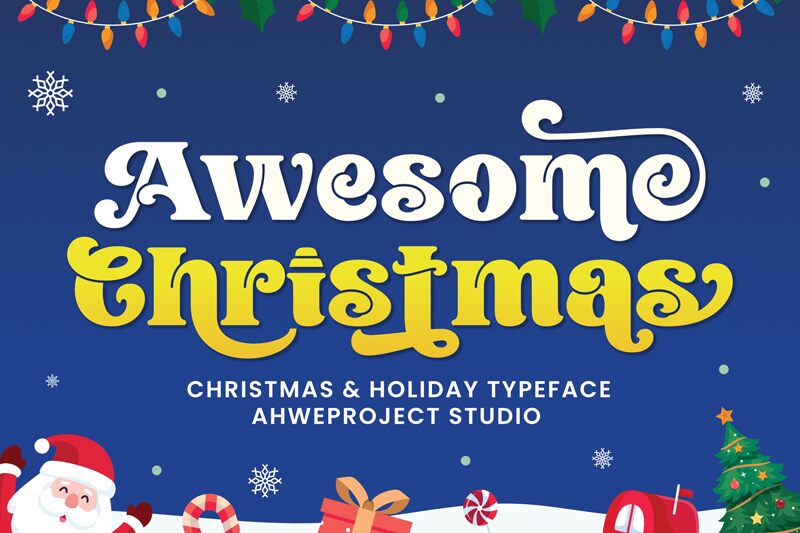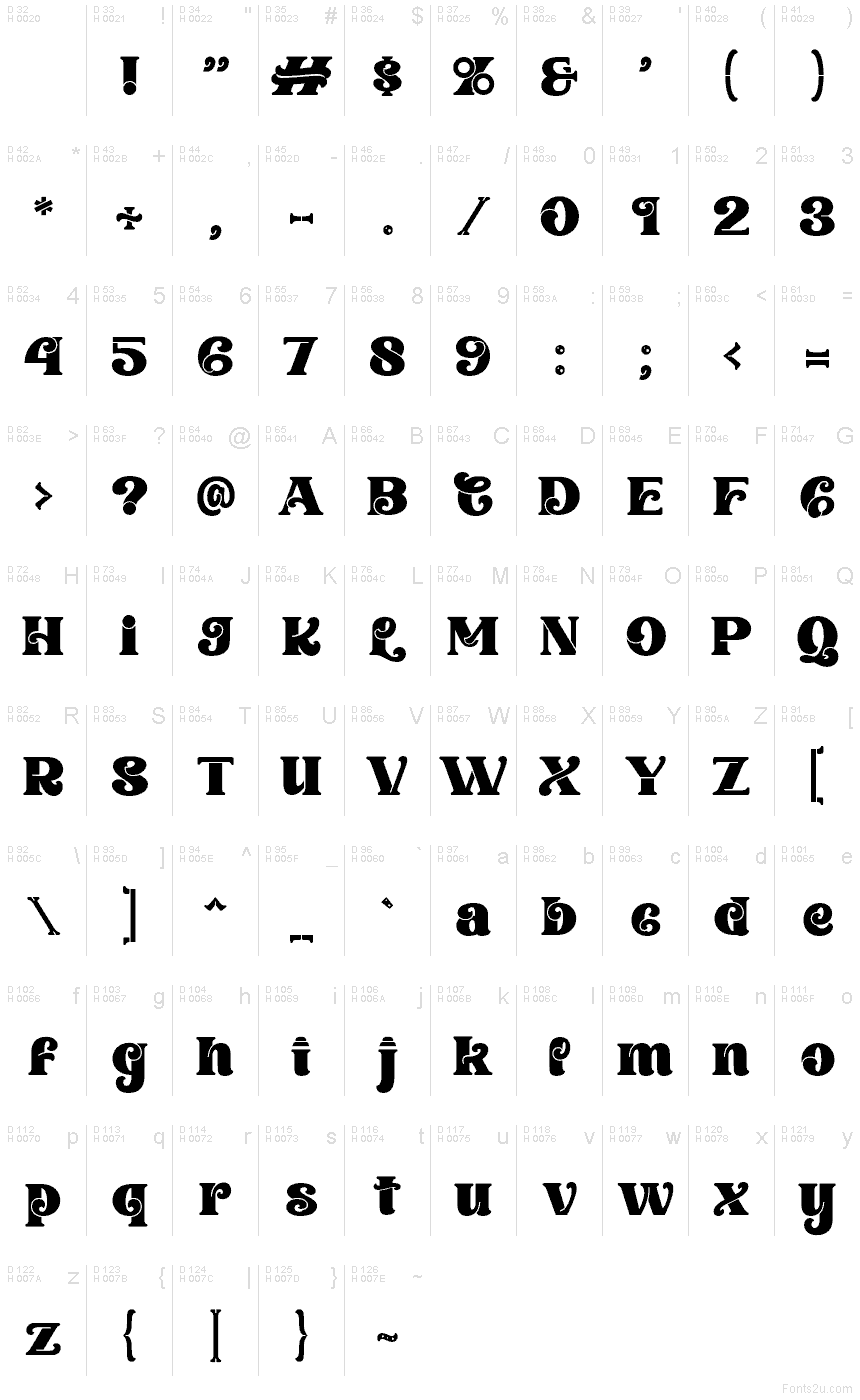
Awesome Christmas font by Ahweproject is a free decorative Christmas typeface that wraps your words in tinsel and twinkling lights. Its chunky letterforms, swirling curls, and playful cutout shapes feel like they were cut from festive paper garlands, giving every headline a storybook holiday charm. The spacing is snug and cozy, so phrases read as bold, unified ornaments rather than stiff, separate letters.
Using Awesome Christmas, you can instantly warm up greeting cards, party invitations, gift tags, seasonal posters, social media graphics, market stall signage, and festive packaging. This free font shines when used large as a headline, then paired with a clean sans serif for smaller supporting text to keep everything readable yet full of holiday magic.